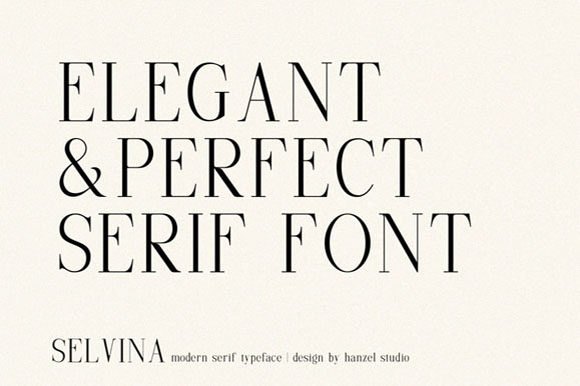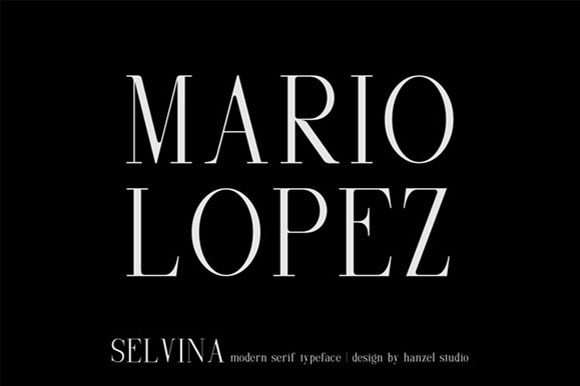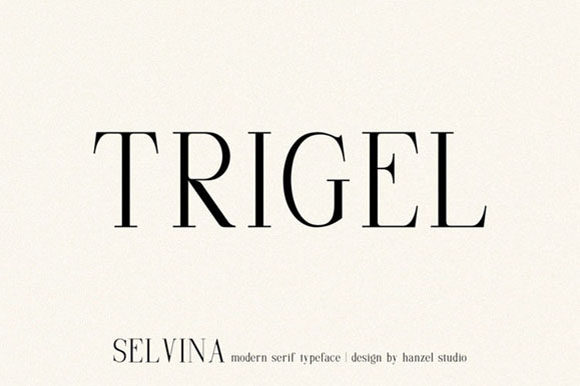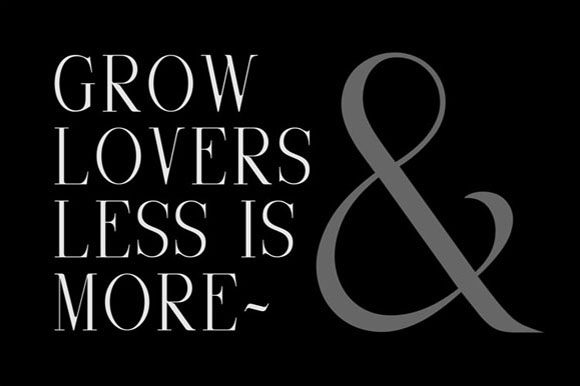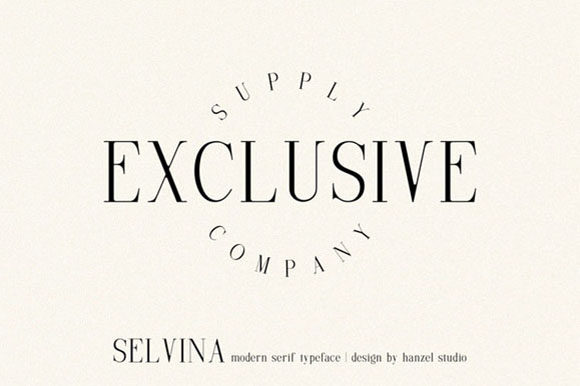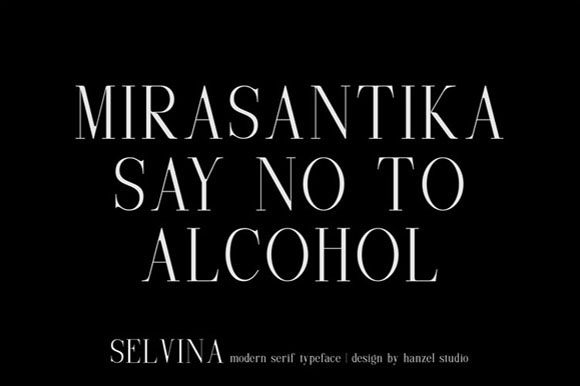
Introduction to Selvina Font
Imagine you’re working on a creative project, pouring your heart and soul into every detail. You’ve finally landed on the perfect headline, but it’s missing that one thing that would take it to the next level – a font that exudes sophistication and elegance. That’s where the Selvina Font comes in, a classic serif font with an editorial look and feel that’s sure to elevate your design to new heights.
As a valuable design resource, the Selvina Font is perfect for designers looking to add a touch of high-quality refinement to their work. Its versatility makes it an ideal choice for branding projects, and its beautiful, intricate details will make your headlines stand out. Whether you’re working on a magazine, a website, or a brochure, this font is sure to impress.
Key Features of Selvina Font
- High-quality, professional design suitable for creative projects and presentations.
- Includes a range of stylish and elegant characters, ideal for use in logos, headings, and titles.
Honest Review: Selvina Font
I recently came across the Selvina Font, a high-quality design resource that I just had to share my thoughts on. As a designer, I’m always on the lookout for unique fonts that can elevate my creative projects.
What works well about the Selvina Font is its elegant and sophisticated design, making it perfect for projects that require a touch of class. The font is also available for free download, which is always a bonus. I also appreciate the transparent background, which gives me the flexibility to customize it to my needs.
Here are some of the key features that I like about the Selvina Font:
- Elegant and sophisticated design
- High-quality and professional look
- Transparent background for customization
Overall, I’m impressed with the Selvina Font, and I would definitely recommend it to fellow designers looking for a high-quality design resource. With its elegant design and transparent background, it’s a great addition to any creative project. ✨
Tips for Getting the Most Out of Selvina Font
To get the most out of the Selvina Font, use it in conjunction with other high-quality design elements, such as graphics and images. Experiment with different font sizes, colors, and styles to create a unique and eye-catching design.
The Selvina Font is perfect for a variety of creative projects, including logos, business cards, and marketing materials. It’s also great for use in social media graphics, blog posts, and other online content.